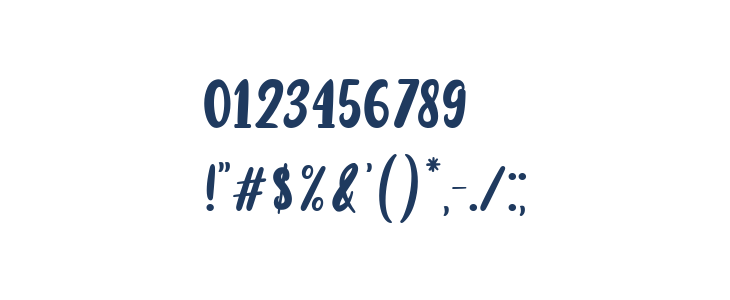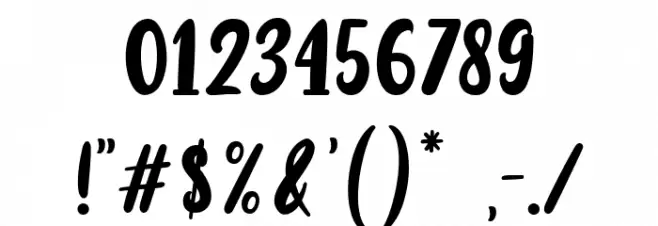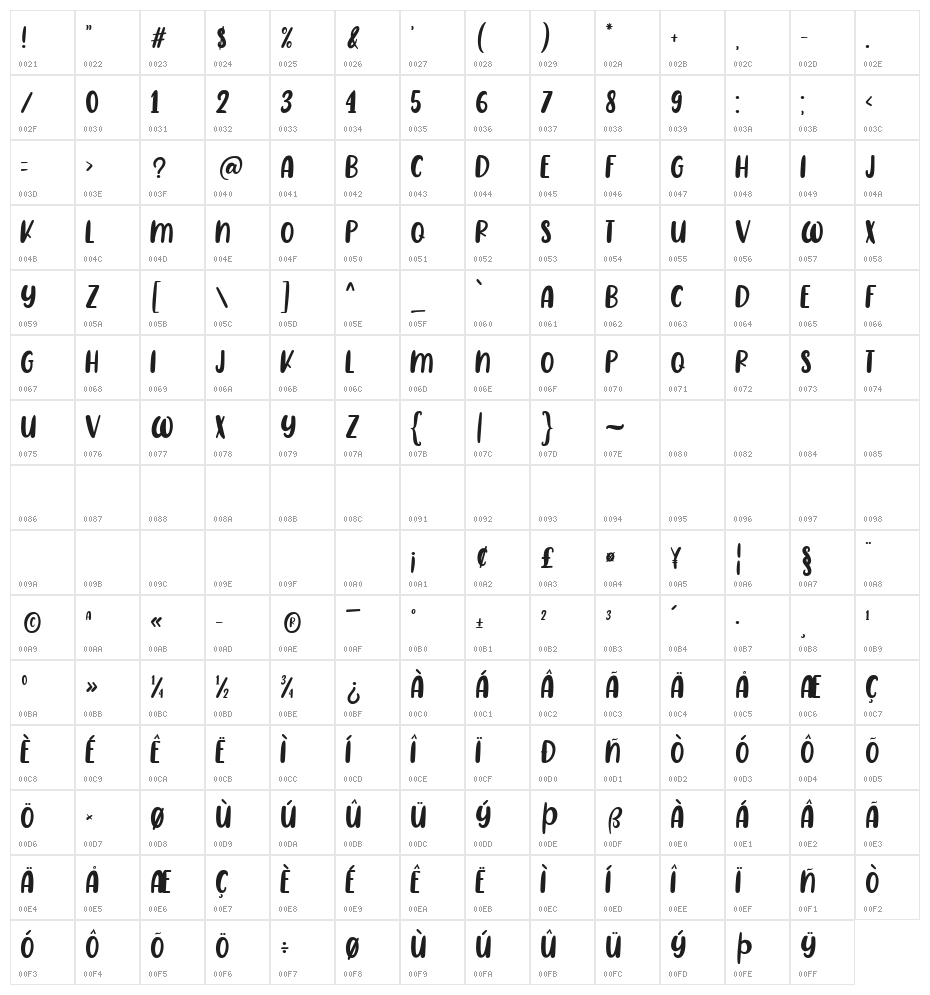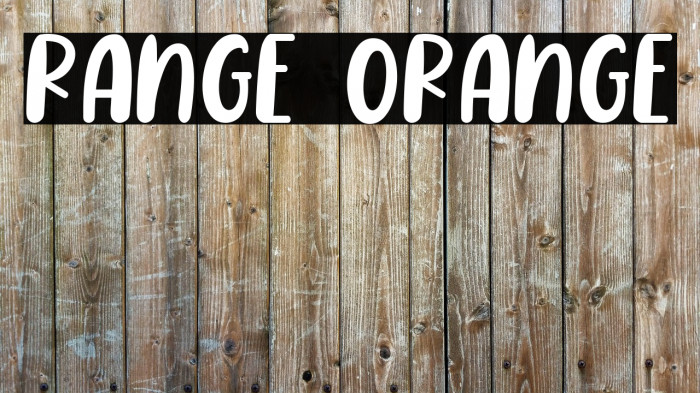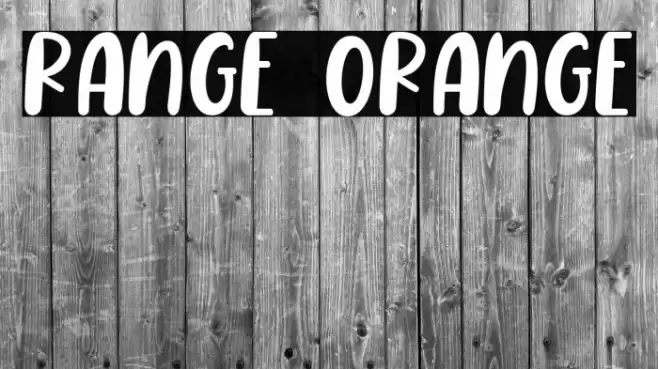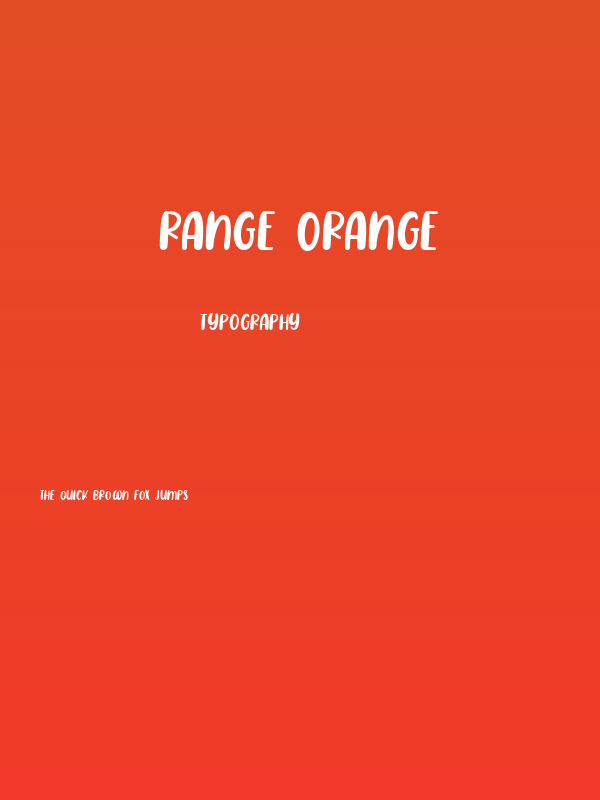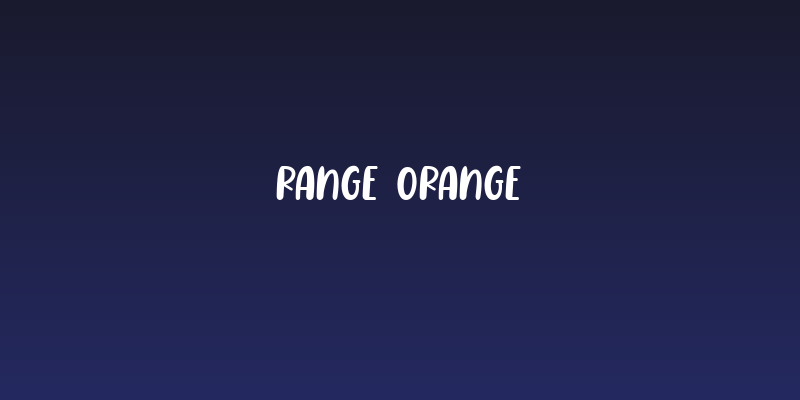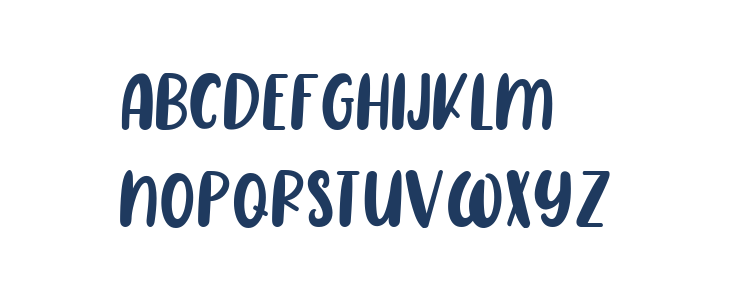
Range Orange Font
Range Orange Description
This font features a playful and bold design with rounded edges and a handwritten feel. The uppercase and lowercase letters maintain a consistent style, with a slight slant that adds a dynamic touch. The numbers are equally bold and rounded, complementing the overall aesthetic. The special characters are well-integrated, maintaining the same playful and bold characteristics. This font is ideal for projects that require a friendly and approachable look, such as children's books, casual branding, or creative posters.
| Proposed Projects | Ideal for children's books, casual branding, creative posters, and playful invitations. |